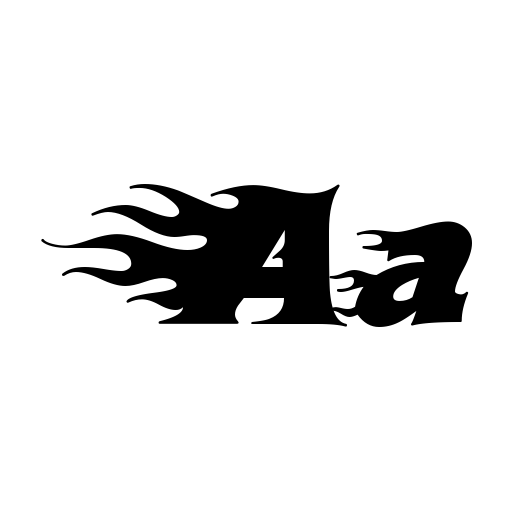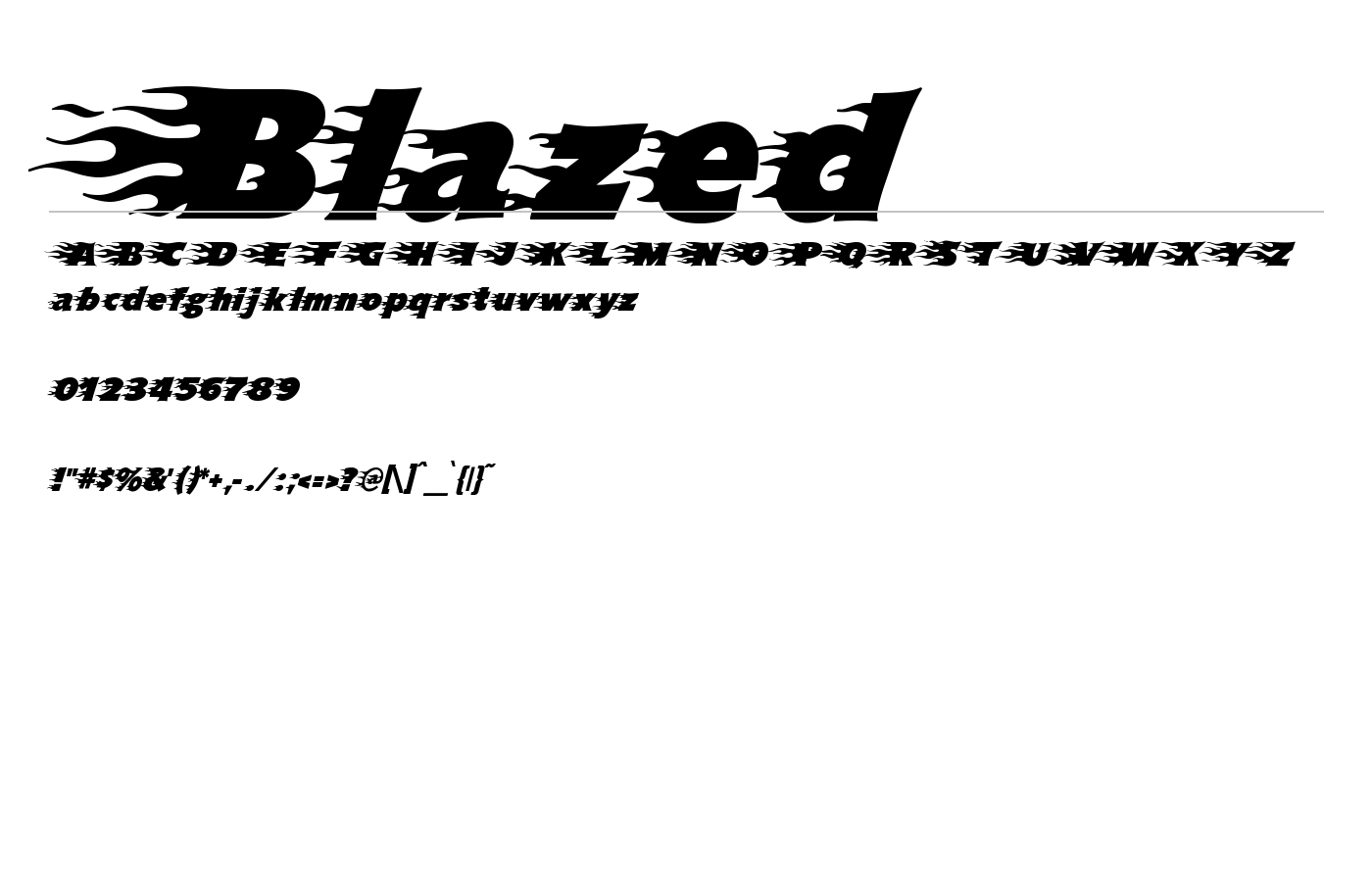
Blazed is a bold, decorative serif font featuring dramatic flame-inspired flourishes that give it a dynamic, energetic feel. Its thick strokes and italic slant create a sense of speed and intensity, making it perfect for eye-catching headlines, logos, and designs related to sports, racing, or edgy branding. This font's unique fiery style adds a playful yet powerful personality to any project.
Blazed Font
About Blazed Font